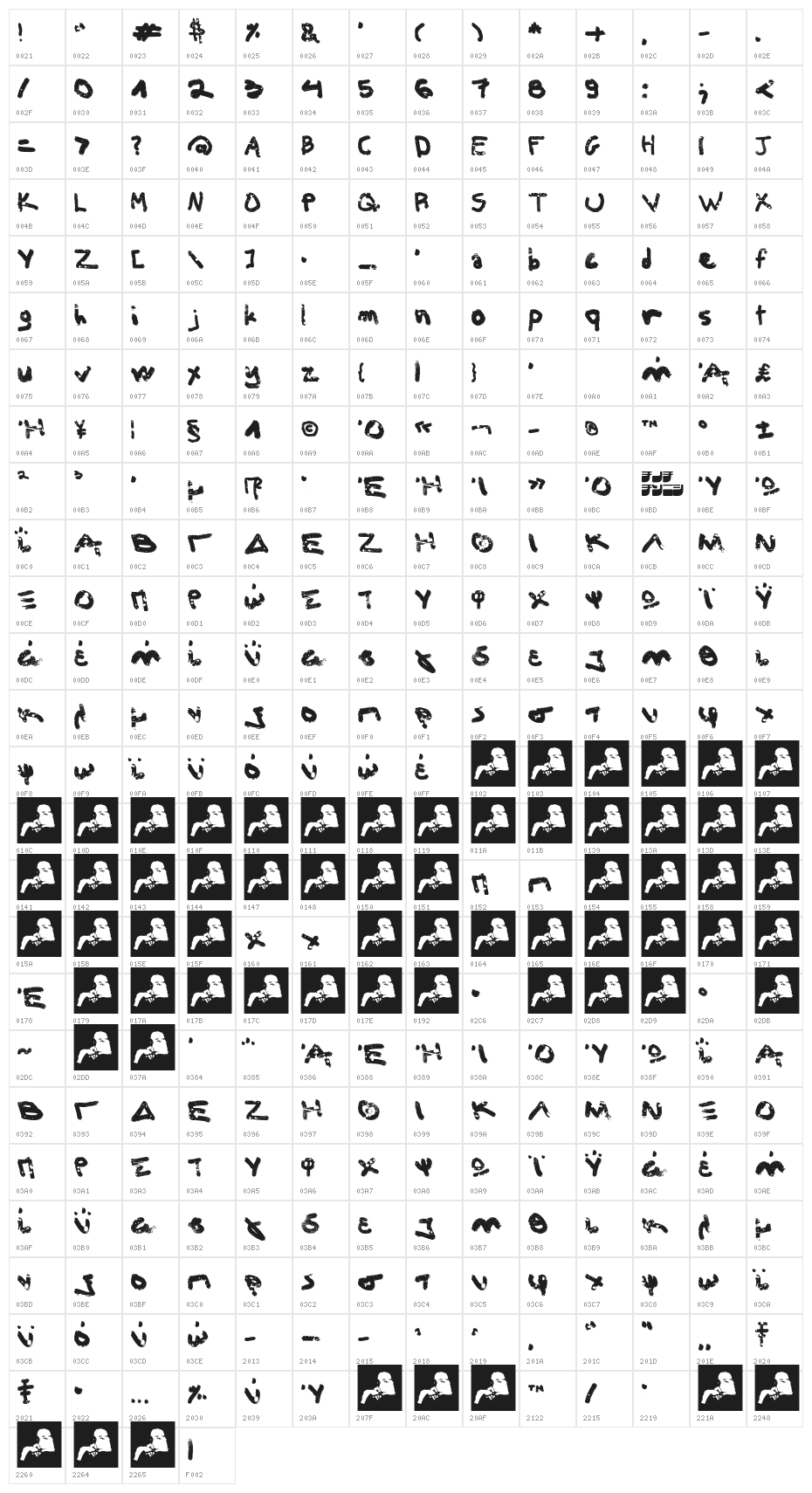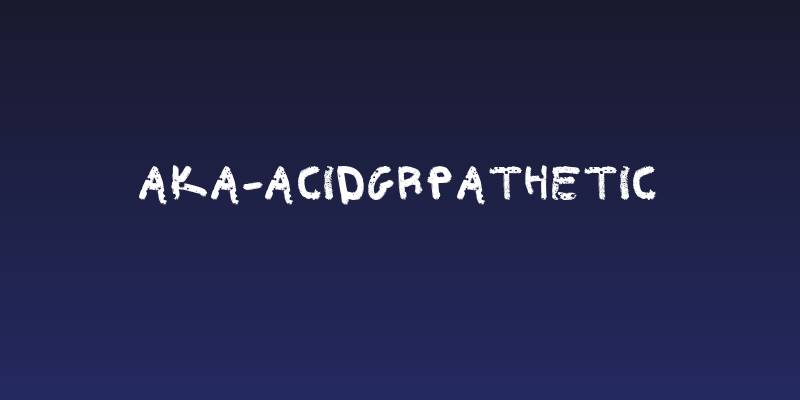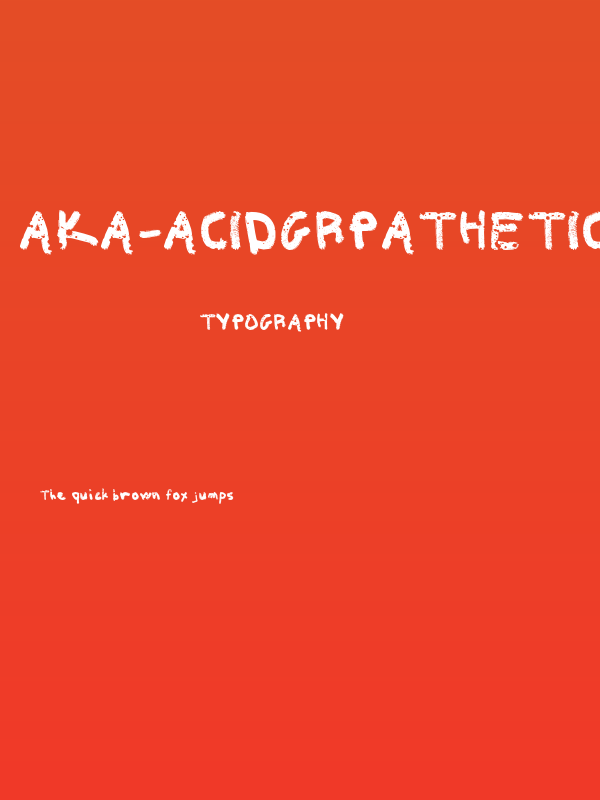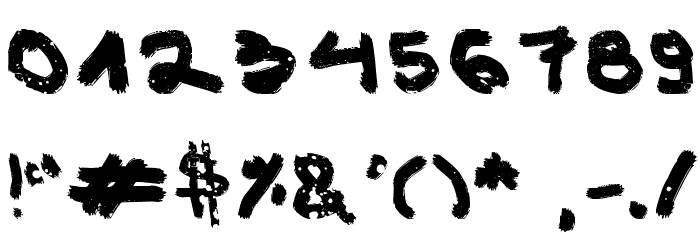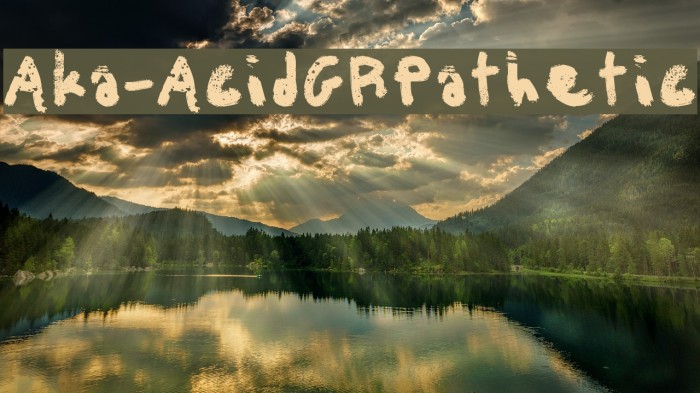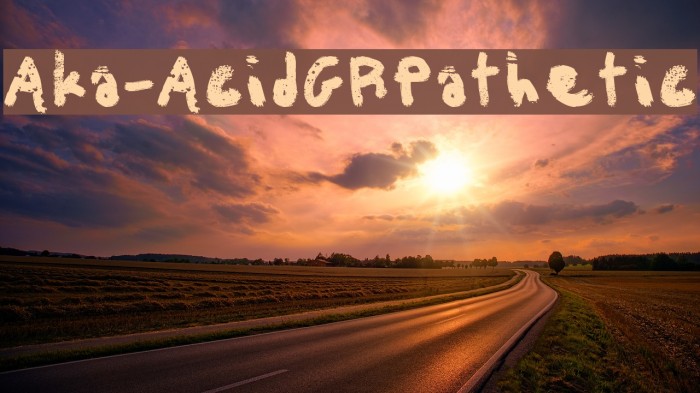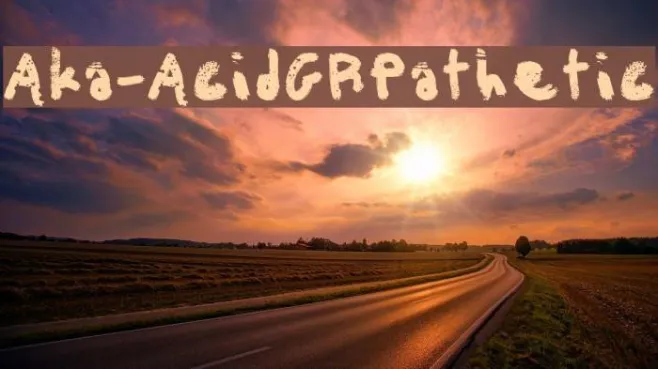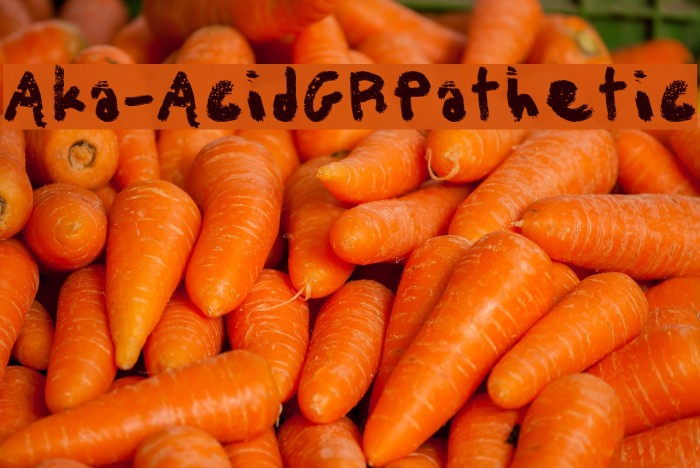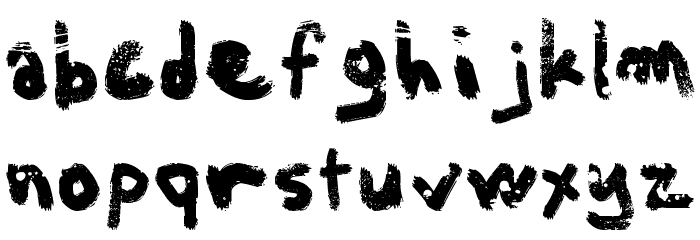
Aka-AcidGRPathetic Font
Aka-AcidGRPathetic Description
This font features a bold, distressed style with a grunge aesthetic. Each character appears as if it has been painted with a rough brush, giving it a textured and worn look. The uppercase and lowercase letters maintain a consistent thickness, while the numbers and special characters follow the same rugged theme. The overall appearance is chaotic yet artistic, making it ideal for projects that require a raw, edgy feel. The irregular edges and varied stroke widths add to its unique character, making it stand out in any design.
| Overall Style | Grunge, Artistic |
| Proposed Projects | Ideal for album covers, posters, street art designs, and edgy branding projects. |